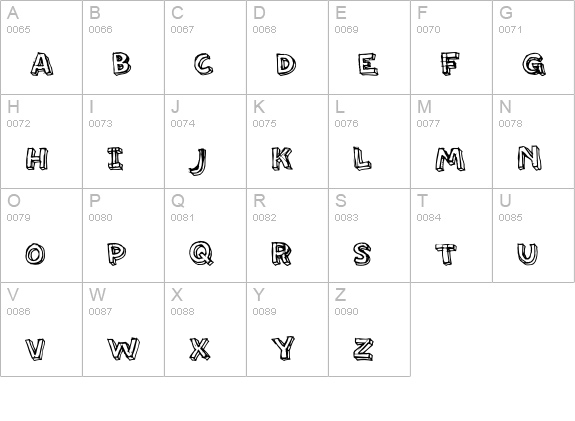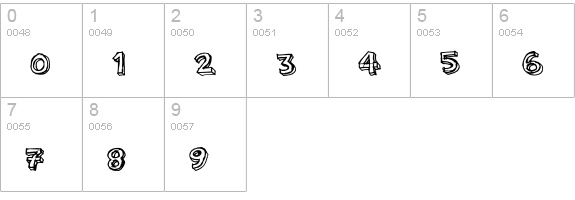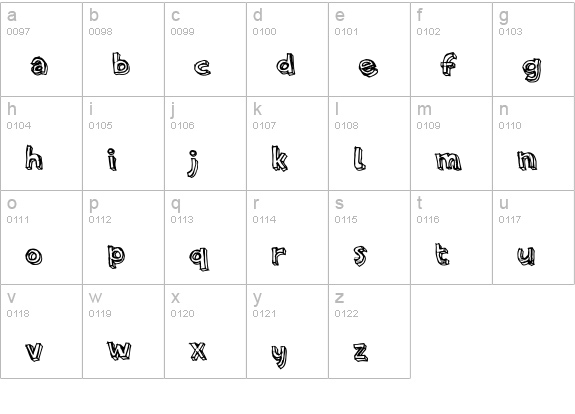
PFAmateur-Rough Font Details
PFAmateur-Rough font is a charming and versatile typeface that brings a handmade feel to any design project. With its rough edges and slightly irregular strokes, this font exudes a sense of creativity and authenticity. Perfect for adding a personal touch to invitations, posters, logos, and more, PFAmateur-Rough font is sure to make your designs stand out. What's even better is that PFAmateur-Rough font is completely free to download at FontsMarket.com. So you can easily access this unique and stylish font to enhance your creative endeavors without any cost. Don't miss out on the opportunity to add PFAmateur-Rough font to your collection and elevate your designs with its artistic flair.